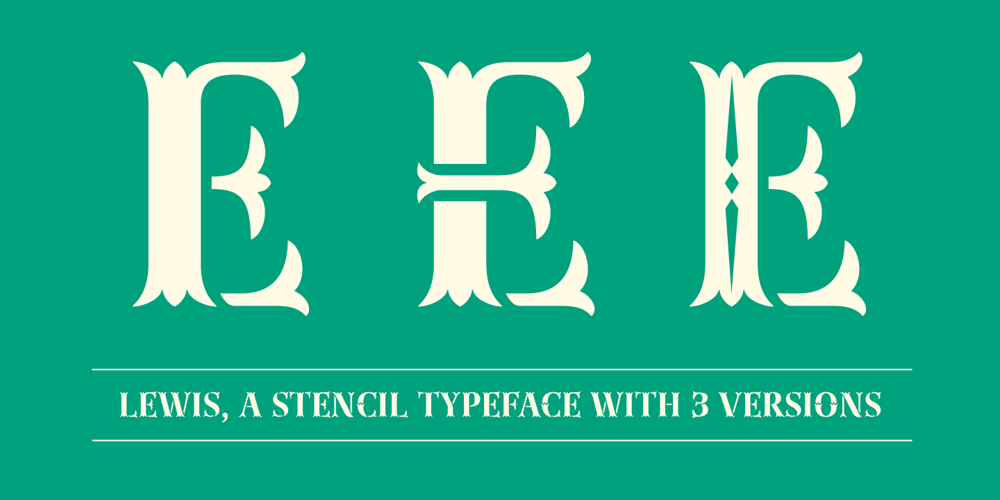
Lewis Font Family was designed by published by Thierry Fétiveau. Lewis contains 3 styles and family package options. Lewis is a stencil typeface inspired by vintage sign painting. Lewis is designed for display use within printed publications as it has a high contrast of organic forms. Lewis consists of 3 styles; Classic, Display and Inline. Each style is based on the same skeleton but with a different personality. The Classic style is a simple and elegant stencil typeface which is also the original structure of Lewis. The Display style features intertwined flourish like parts and the last member of the family is the Inline style which features subtle internal details.